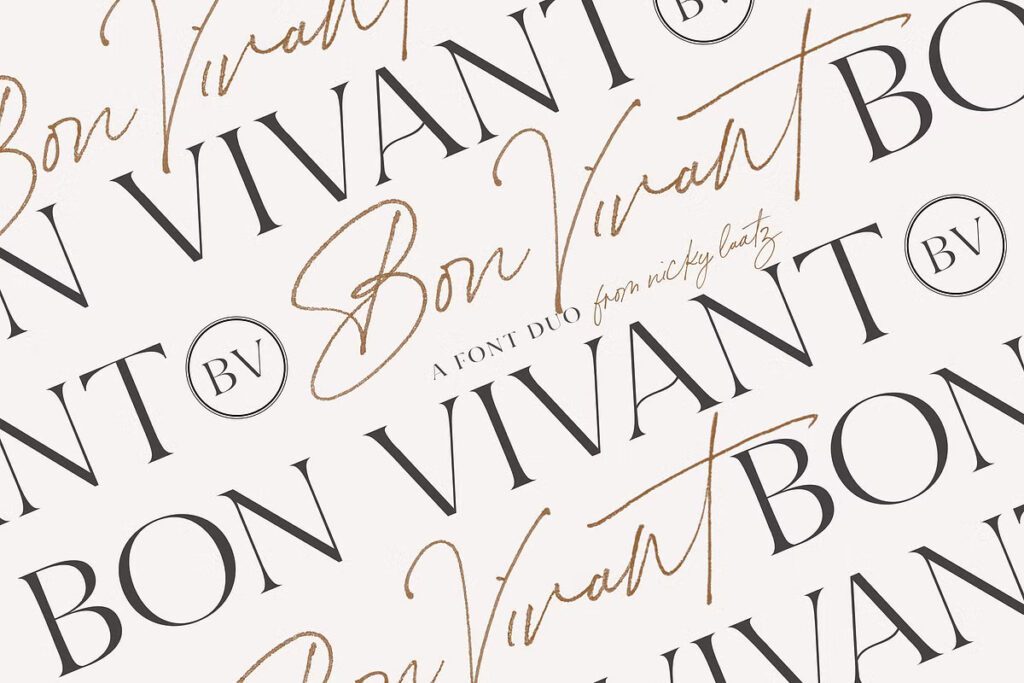
Bon Vivant Collection – Luxury in Every Detail
Unveil the charm and elegance of the Bon Vivant Font Collection—designed for those who appreciate the finer things in life. Whether you’re working on high-end branding, wedding invitations, or luxury product designs, this collection brings an air of sophistication to every project. With its seamless blend of script and serif fonts, paired with exclusive design elements, it offers endless creative possibilities.
Bon Vivant Script FontAvailable in both SVG and Regular OpenType formats, the script font mimics natural handwriting with a wide range of automatic ligatures. Perfect for adding a personal, luxurious touch to your designs.
Bon Vivant Serif FontComes in two elegant weights—regular and bold—ideal for classy editorial layouts or brand identities.
Multi-Purpose UseFrom luxury branding to modern typography, Bon Vivant caters to diverse design needs. The pack also includes a handy PDF guide to help you make the most of the collection.
Elegant Ligatures: Enhance your script font with automatic ligatures that make your text look like authentic handwriting.
Versatile Design Elements: Bonus brushes, papers, and shapes let you explore various textures and design styles.
Elevate your designs with the timeless elegance of Bon Vivant. Its luxury appeal, combined with easy-to-use design elements, makes it a must-have for any designer’s toolkit.